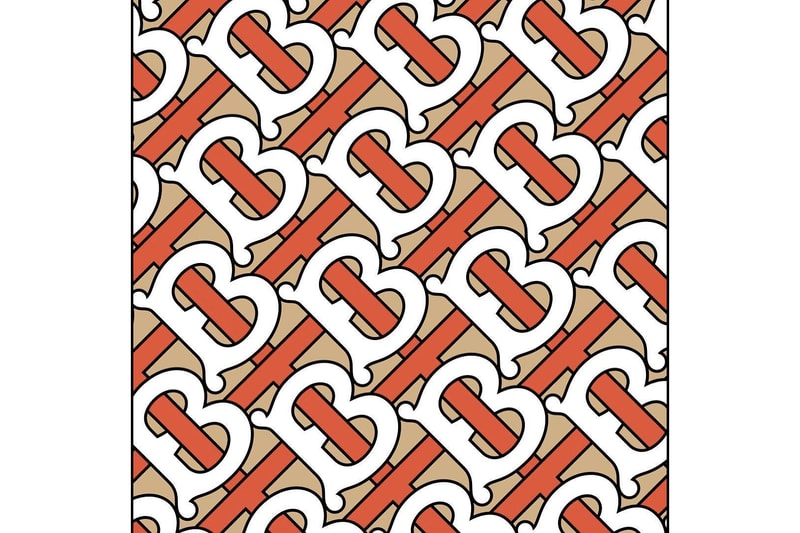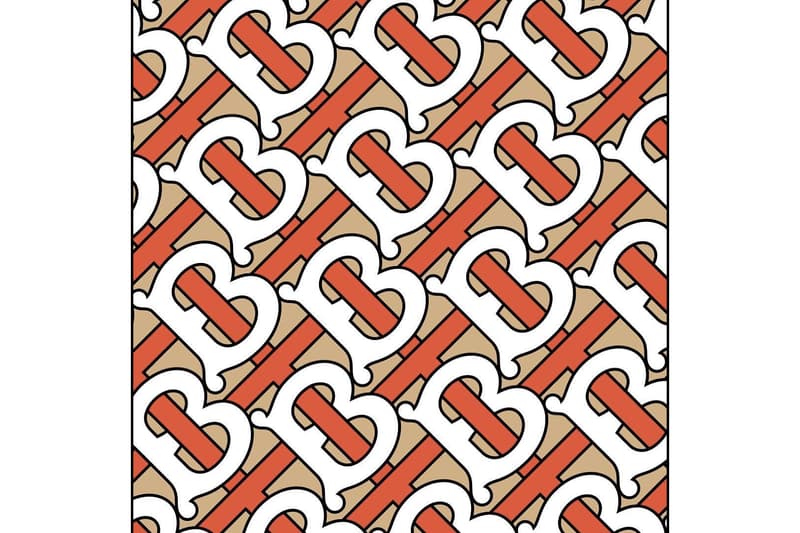
Burberry Looks to Its Archive With New “Thomas Burberry” Monogram
As well as a new Peter Saville-designed logo.
Following on from its ‘80s and ‘90s-inspired silk shirt, Burberry has continued to look back to its archives for a new “Thomas Burberry” monogram print. Named after the label’s founder, the new monogram was announced through a series of emails between graphic designer Peter Saville and Burberry’s Riccardo Tisci.
The print features a repeated ‘B’ logo on a gold background with orange lines  linking the repeated ‘B.’ One of the images appears to show the print used on an invite for Burberry’s Spring/Summer 2019 show at London Fashion Week this September.
As well as revealing the “Thomas Burberry” monogram, Burberry also gave a first look at the house’s new logo. Designed by Peter Saville, the logo features a bolder and more-modern text than the previous branding, with “London England” in the same font.